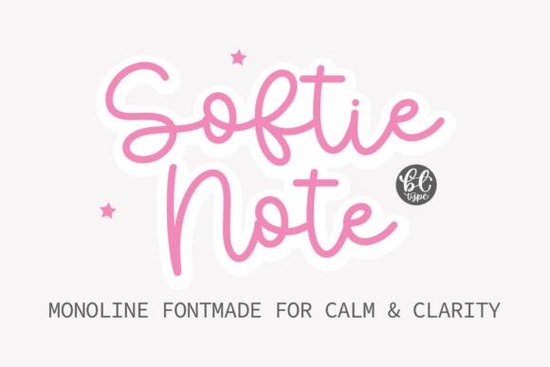
Looking for a handwritten font that feels warm, friendly, and easy to use across all your creative projects? Softie Note Font is a sweet, playful typeface with soft rounded strokes designed for planners, journals, greeting cards, and crafting. It gives your work that personal, hand-drawn look like you wrote it yourself, but cleaner and more consistent.
What makes Softie Note Font different from other handwritten fonts?
Plenty of handwritten fonts look great in previews but fall apart at small sizes or feel too messy for real projects. Softie Note Font balances charm with readability. The rounded letterforms stay clear whether you're cutting vinyl with a Cricut machine, printing on card stock, or adding text to a digital planner layout.
It works especially well for:
- Planner and journal layouts headers, labels, and accent text
- Greeting cards birthdays, thank-you notes, holiday designs
- Print-on-demand products mugs, tote bags, t-shirts
- Social media graphics quotes, stories, and promotional posts
- Wedding and event stationery invitations, menus, place cards
If you like pairing scripts with display fonts, something like the Ourstory font duo gives you a nice script-and-sans combination, but Softie Note stands well on its own for projects that need a single, friendly typeface.
Is Softie Note Font good for Cricut and cutting machines?
Yes. One of the main reasons crafters choose this font is how well it performs with cutting machines like Cricut and Silhouette. The soft, rounded strokes don't have thin hairlines that tear during weeding. That alone saves time and frustration when you're working on multiple cuts.
For best results with a cutting machine:
- Use the font at a size that keeps the letters wide enough to cut cleanly.
- Weld or attach letters in your design software before cutting connected script text.
- Do a test cut on a small section first, especially with vinyl or heat transfer material.
What kinds of projects pair well with a soft handwritten style?
A font like Softie Note fits naturally into designs that aim for a cozy, approachable, handmade feel. Think about the kind of work you see on Etsy bestsellers planners with cute headers, mugs with short witty phrases, or greeting cards with a personal touch.
Here are a few pairings that work nicely:
- Use Softie Note for subheadings alongside a bold sans-serif for main titles.
- Combine it with a bolder script like Angela when you want contrast between an elegant flowing style and a casual handwritten one.
- For craft projects with a rustic or homey vibe, a handmade-style script can complement the soft look without clashing.
If your designs lean more toward sweet and playful say, bakery branding or kids' party invitations Sweet Cupcake is another option worth exploring for a similar energy. And for projects that call for something a bit more refined, like wedding invitations or boutique logos, Bridgerton offers a classic script alternative.
Quick checklist before you start designing
- Test at different sizes to see where it looks best it shines at medium to large display sizes.
- Pair it thoughtfully with a clean sans-serif or a contrasting script for visual hierarchy.
- Do a test cut if you're using it with a cutting machine it can save wasted material.
Tip: Start by using Softie Note on one small project a single greeting card or a planner header and see how it feels in your workflow. Once you're comfortable, you'll find it becoming a go-to for all kinds of personal and commercial designs.